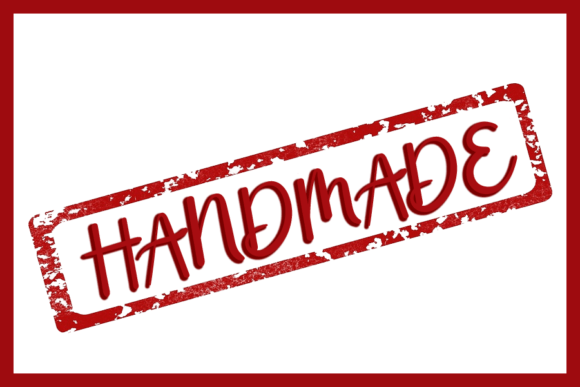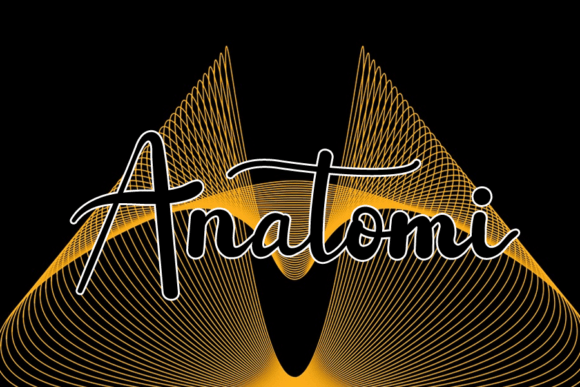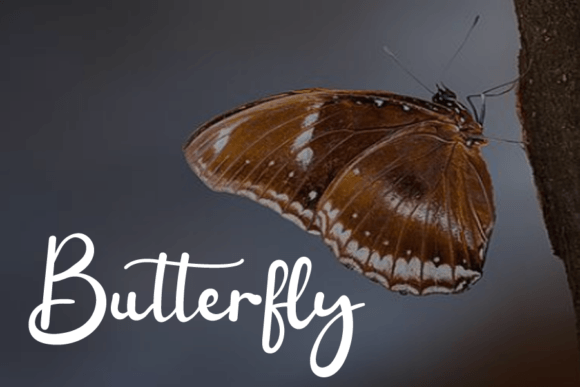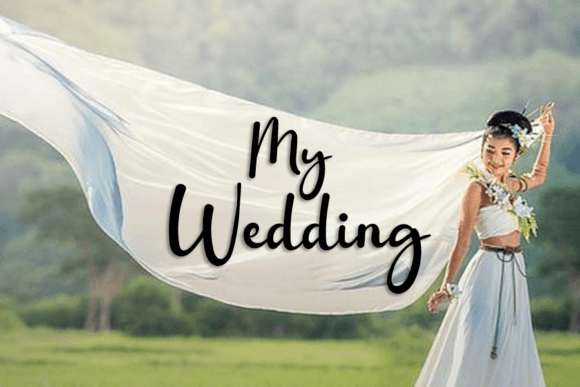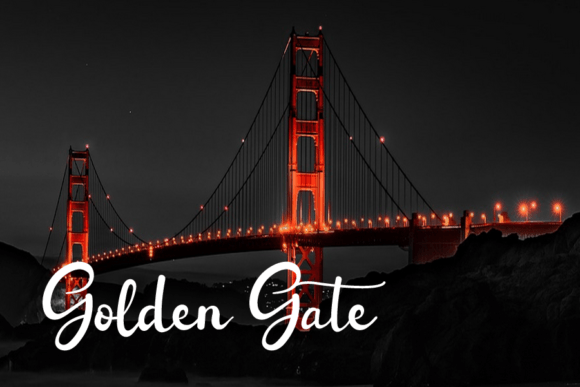
The Power of Branding Font: Elevate Your Design with Elegance and Sophistication
When it comes to creating a lasting impression, the right typography can make all the difference. A well-crafted font can elevate your brand’s identity and convey the tone and personality of your business. One such font that has gained popularity among designers and crafters is Branding Font – a delicate, elegant, and flowing handwritten font that exudes sophistication and refinement.
What Makes Branding Font Stand Out?
Branding Font is a beautifully designed font that boasts well-balanced characters, making it an ideal choice for a wide range of design projects. Its elegant and flowing script is perfect for creating a luxurious and high-end feel, while its versatility ensures that it can be used in various contexts, from logos and branding to packaging and advertising.
One of the key features that sets Branding Font apart is its unique character set. Each letter is carefully crafted to ensure that it is not only aesthetically pleasing but also highly legible. This makes it an excellent choice for designers who want to create a cohesive brand identity that is both stylish and professional.
The Benefits of Using Branding Font
So, why should you consider using Branding Font for your design projects? Here are just a few benefits that make it an attractive choice:
- Elegance and Sophistication: Branding Font adds a touch of elegance and sophistication to any design project, making it perfect for luxury brands, wedding designs, and high-end products.
- Versatility: With its well-balanced characters and flowing script, Branding Font can be used in a wide range of design contexts, from logos and branding to packaging and advertising.
- Legibility: Despite its elegant and cursive nature, Branding Font is highly legible, making it an excellent choice for body text and longer design projects.
- Uniqueness: With its unique character set and flowing script, Branding Font stands out from more traditional fonts, giving your design project a distinctive and memorable look.
How to Use Branding Font Effectively
To get the most out of Branding Font, here are a few tips to keep in mind:
- Pair it with a sans-serif font: For a harmonious and balanced look, pair Branding Font with a clean and modern sans-serif font.
- Use it for headlines and titles: Branding Font is perfect for headlines and titles, where its elegance and sophistication can shine.
- Experiment with colors and textures: To add depth and interest to your design, experiment with different colors and textures that complement the elegant and flowing nature of Branding Font.
Who Can Benefit from Branding Font?
Branding Font is an excellent choice for a wide range of designers and crafters, including:
- Graphic designers: Looking to create a cohesive brand identity for their clients or their own business.
- Wedding designers: Seeking to create elegant and sophisticated wedding stationery, decorations, and other materials.
- Packaging designers: Aiming to create eye-catching and luxurious packaging that stands out on store shelves.
- Advertising agencies: Looking to create high-end and sophisticated advertising campaigns that capture the attention of their target audience.
In conclusion, Branding Font is a beautiful and elegant handwritten font that can elevate your design projects with its sophistication and refinement. With its well-balanced characters, flowing script, and versatility, it’s an excellent choice for a wide range of design contexts. Whether you’re a graphic designer, wedding designer, packaging designer, or advertising agency, Branding Font is sure to become a valuable addition to your typography arsenal.
So why not give Branding Font a try and experience the power of elegant and sophisticated typography for yourself?